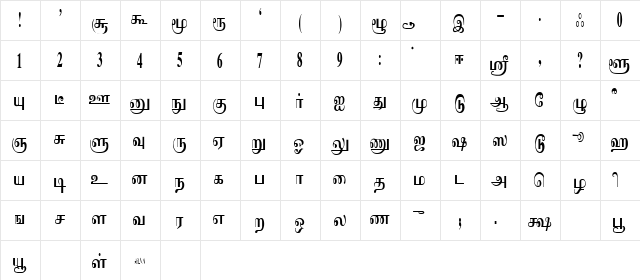
Kumutham Regular
Design Context for Kumutham Typeface
Kumutham takes a measured approach to typography — its balanced proportions and neutral character make it a reliable workhorse for both digital and print work.